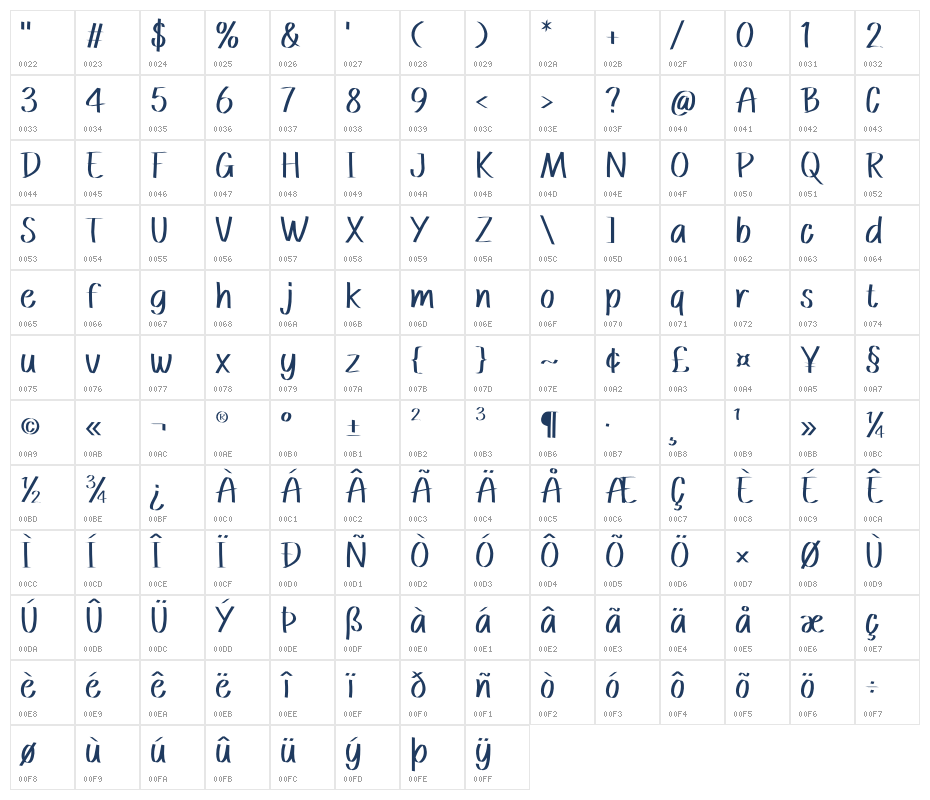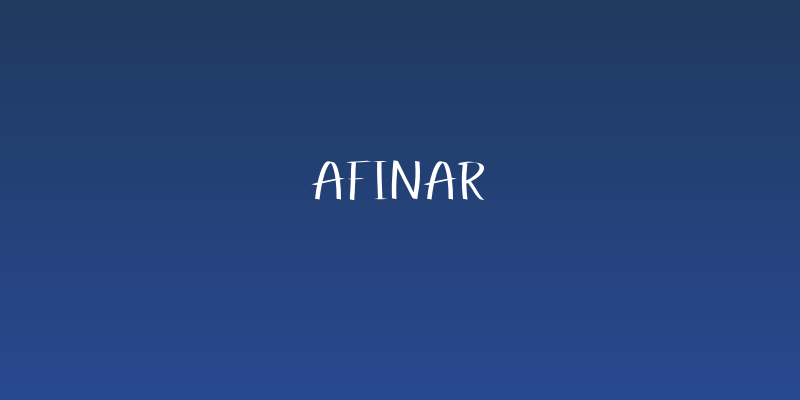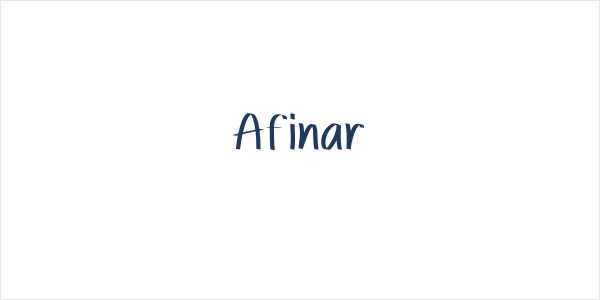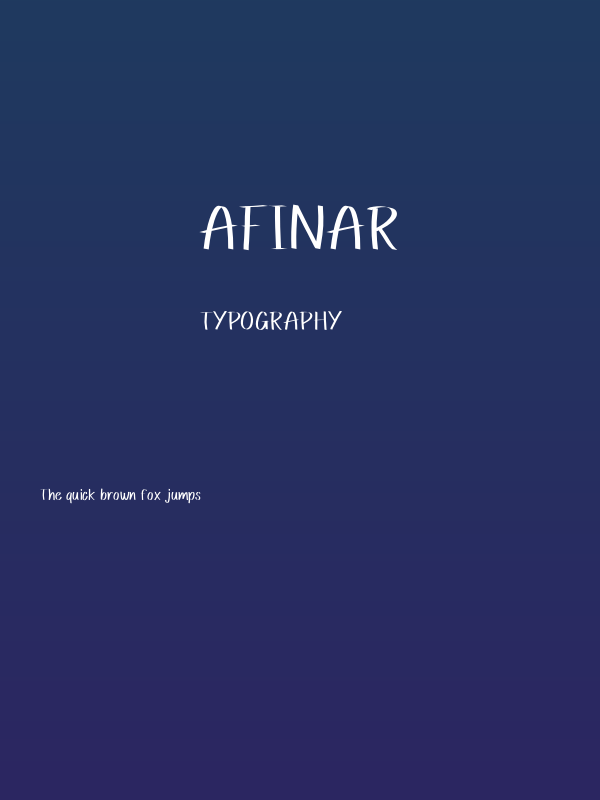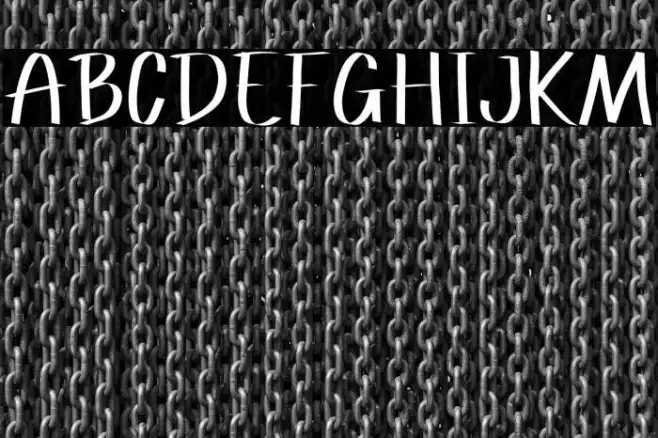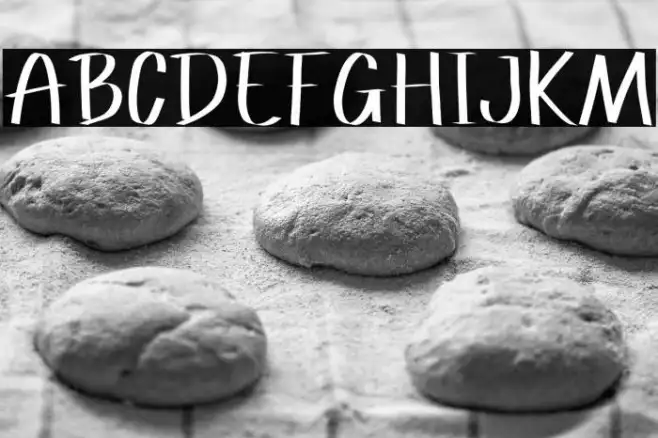
Afinar Font
Afinar Description
A playful, handwritten style font with a casual and whimsical appearance, featuring slightly irregular strokes and a friendly vibe.
| Overall Style | Casual, Playful, Handwritten |
| Use Case | Headlines, Body text, Logos, Invitations, Greeting cards |